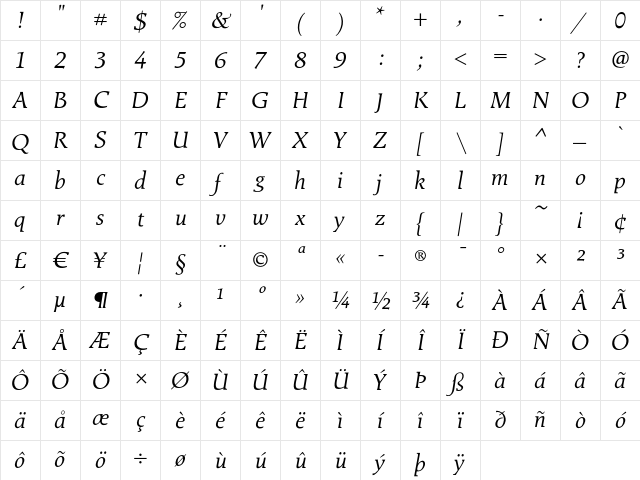
Exlibris Italic Free Font
Exlibris Italic
Design Context for Exlibris
Exlibris is a composed and adaptable typeface that performs quietly and consistently across a wide range of design contexts. The slanted form adds forward momentum and visual energy.
Pro Tip: Use Exlibris for emphasis, pull quotes, and subheadings where its slanted energy can add rhythm to the layout.